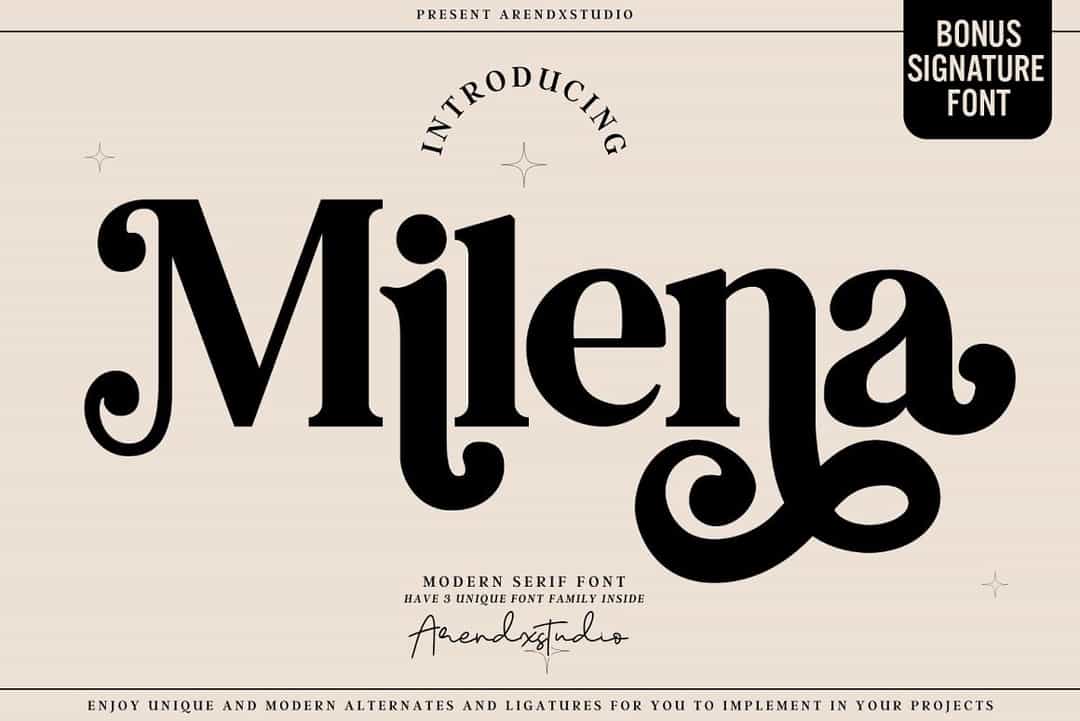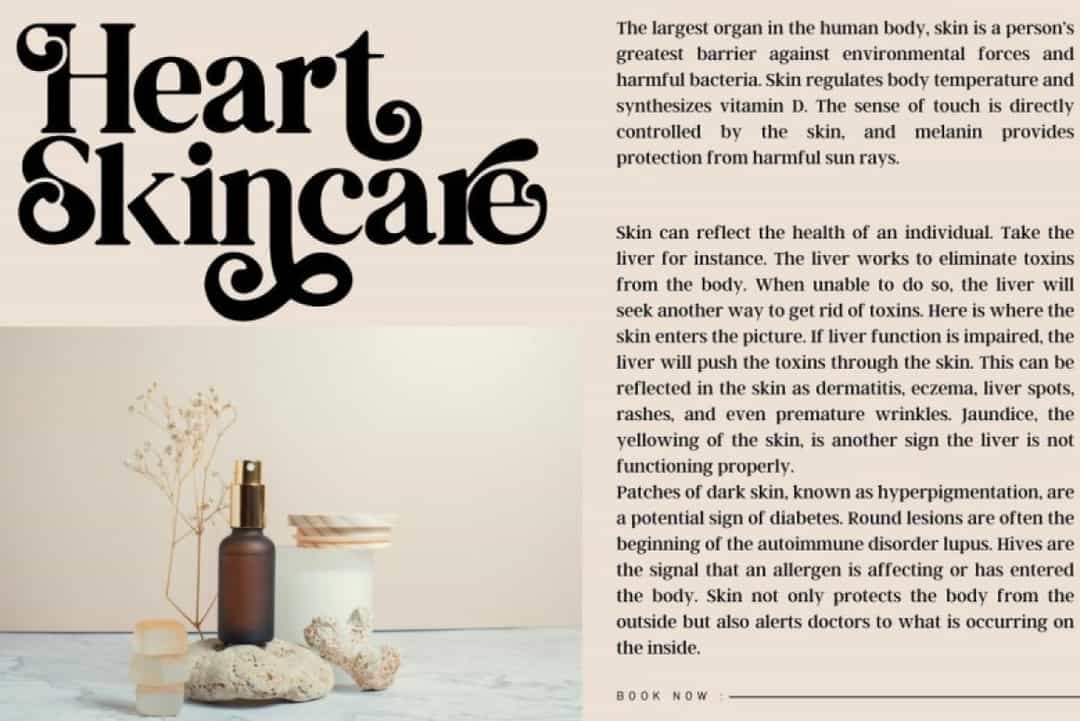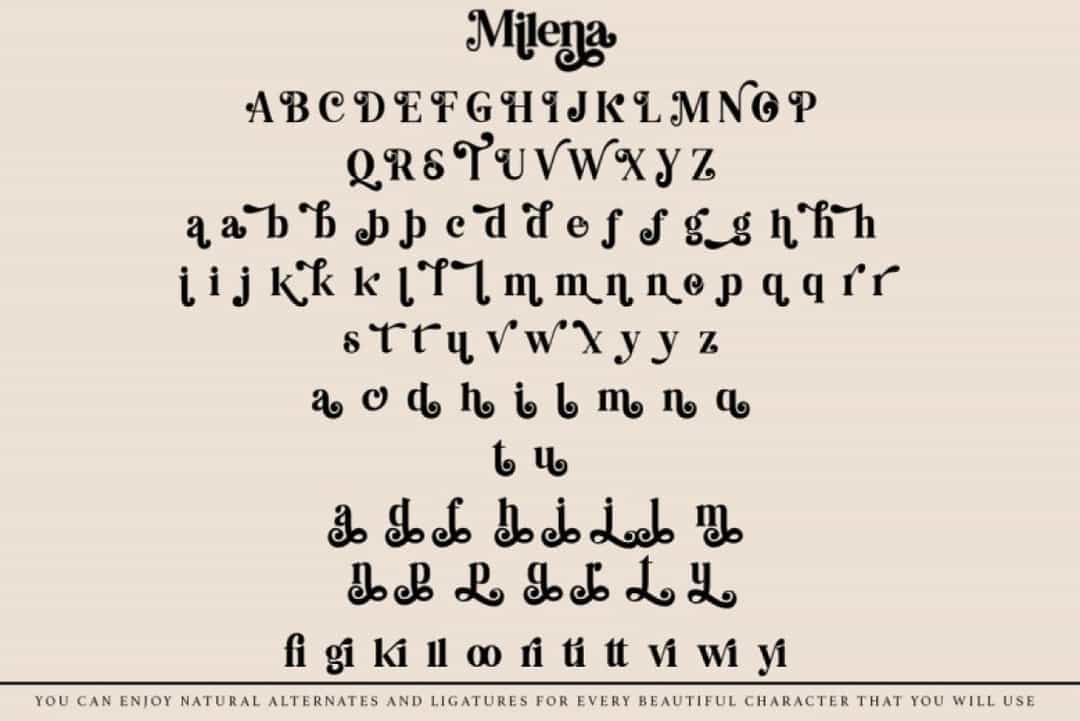
Discover Milena Font, part of the Serif collection—a versatile and unique font perfect for adding a personal touch to your projects. Download it for free and enjoy crafting designs with style, from invitations to social media posts. This font is available exclusively for personal use, giving you the freedom to create without limits. Unlock your creativity with Milena Font today!
MILENA Contemporary Serif Font is an elegant font featuring three styles FAMILY FONT. Perfect for logos, branding projects, wedding designs, advertising media, posts packaging, designs product labels, photography, watermark, invitations or stationery projects requiring handwritten dishes.